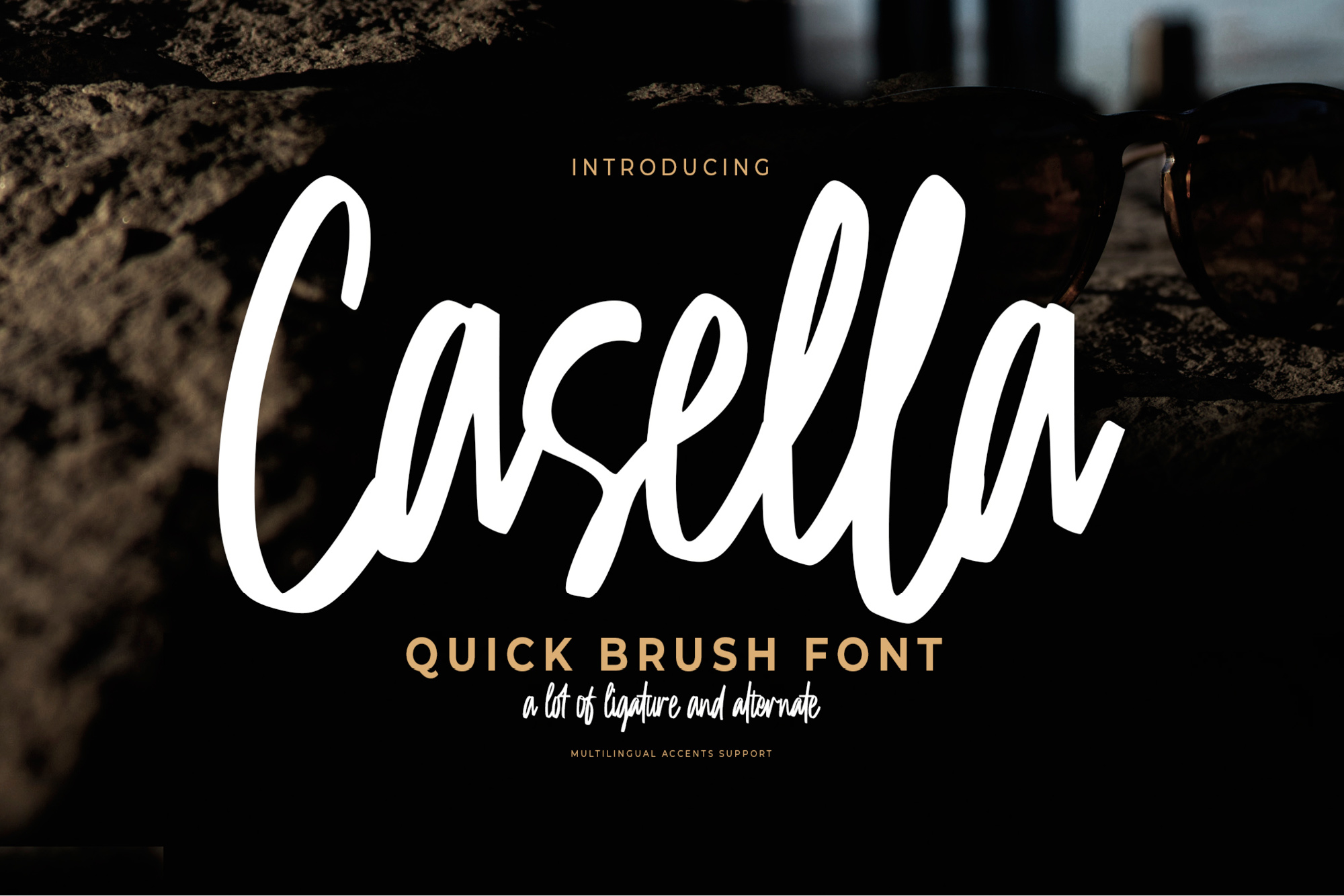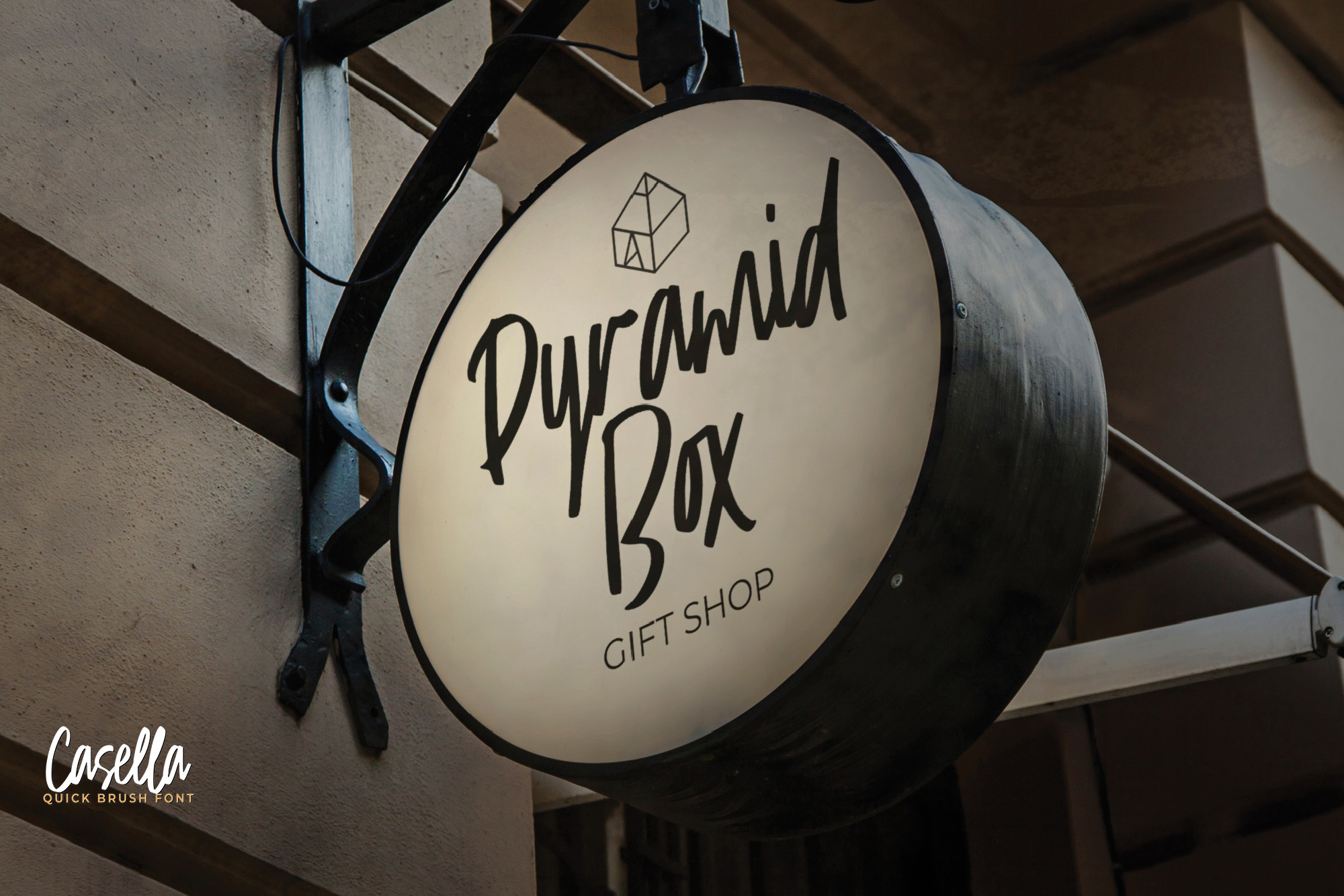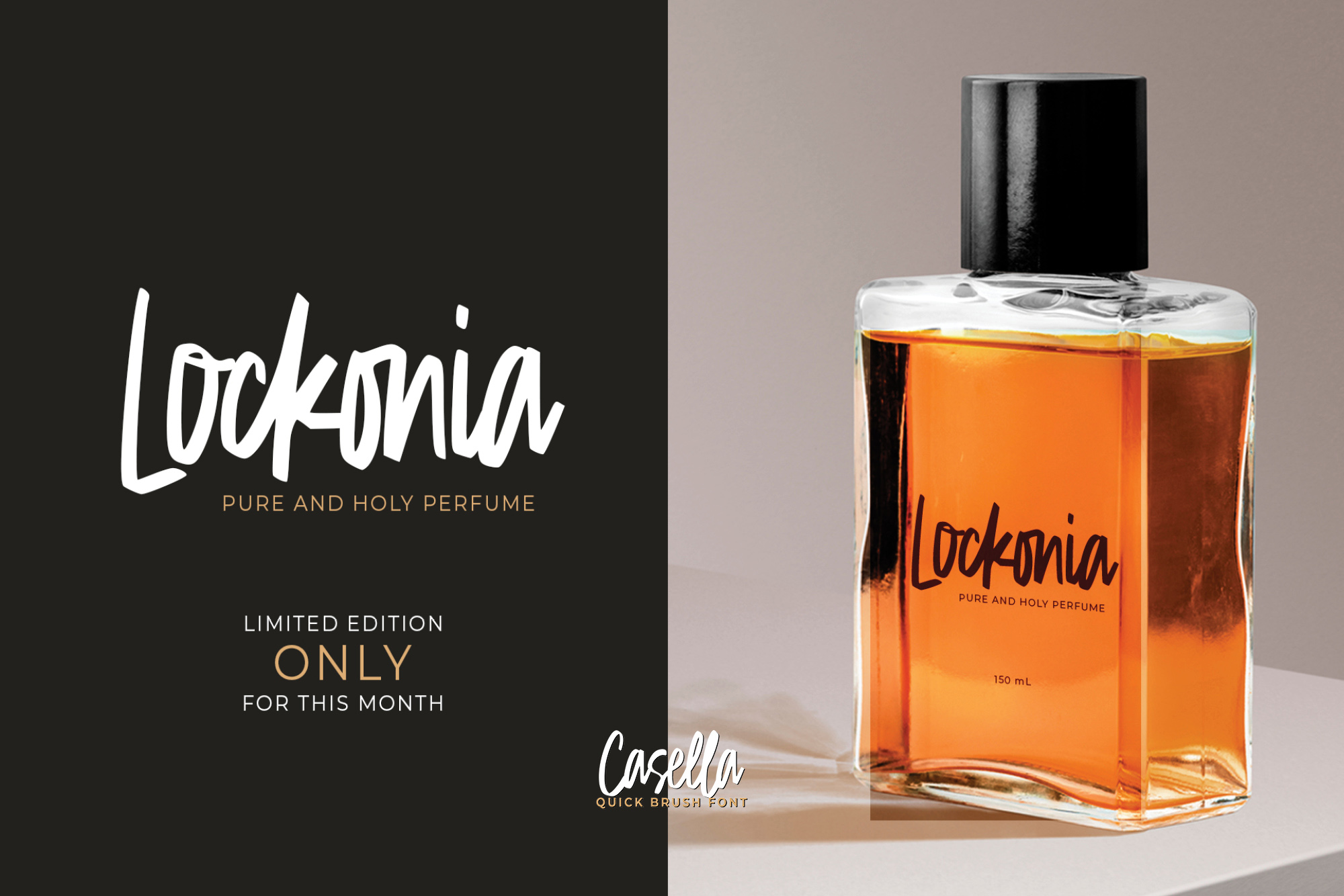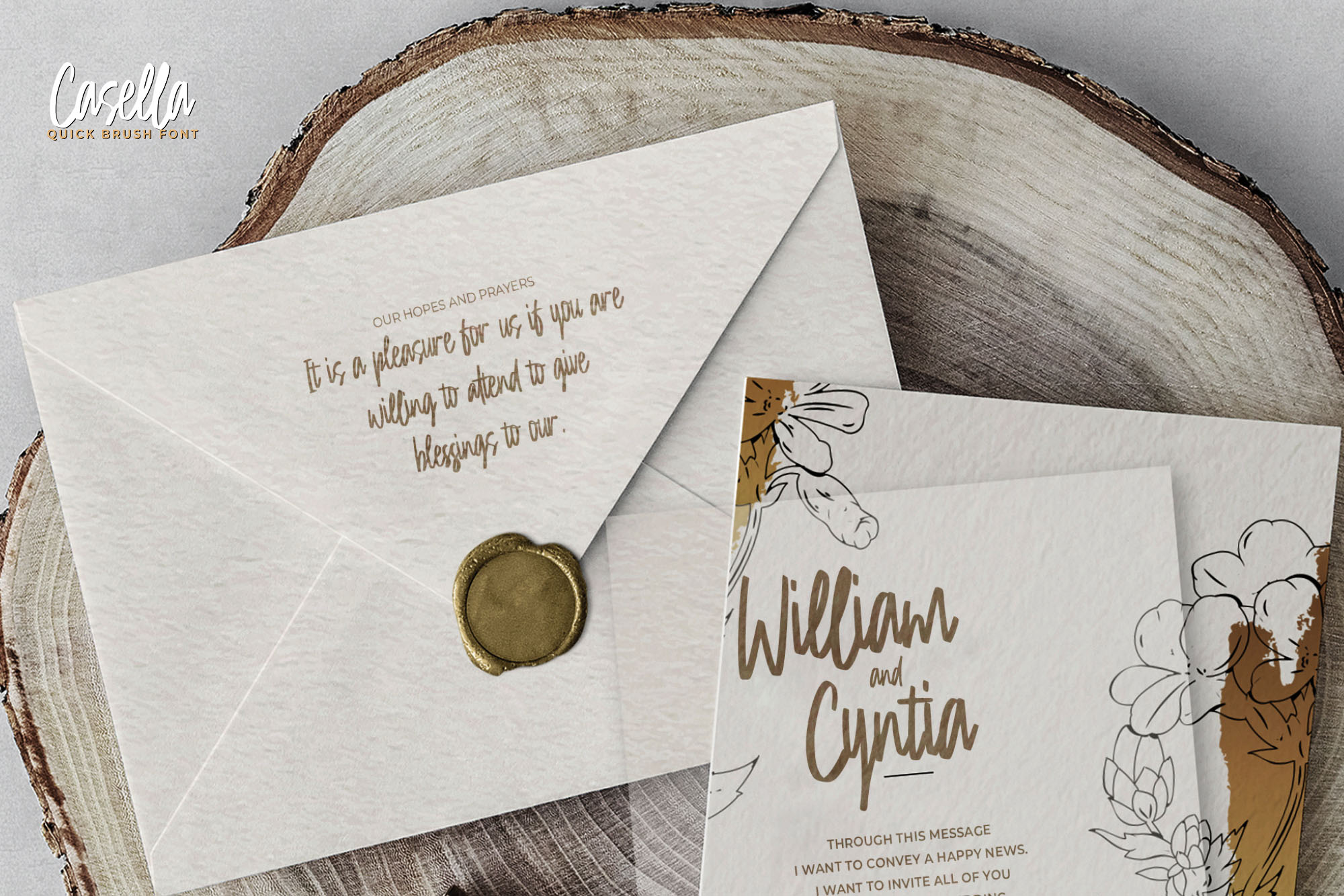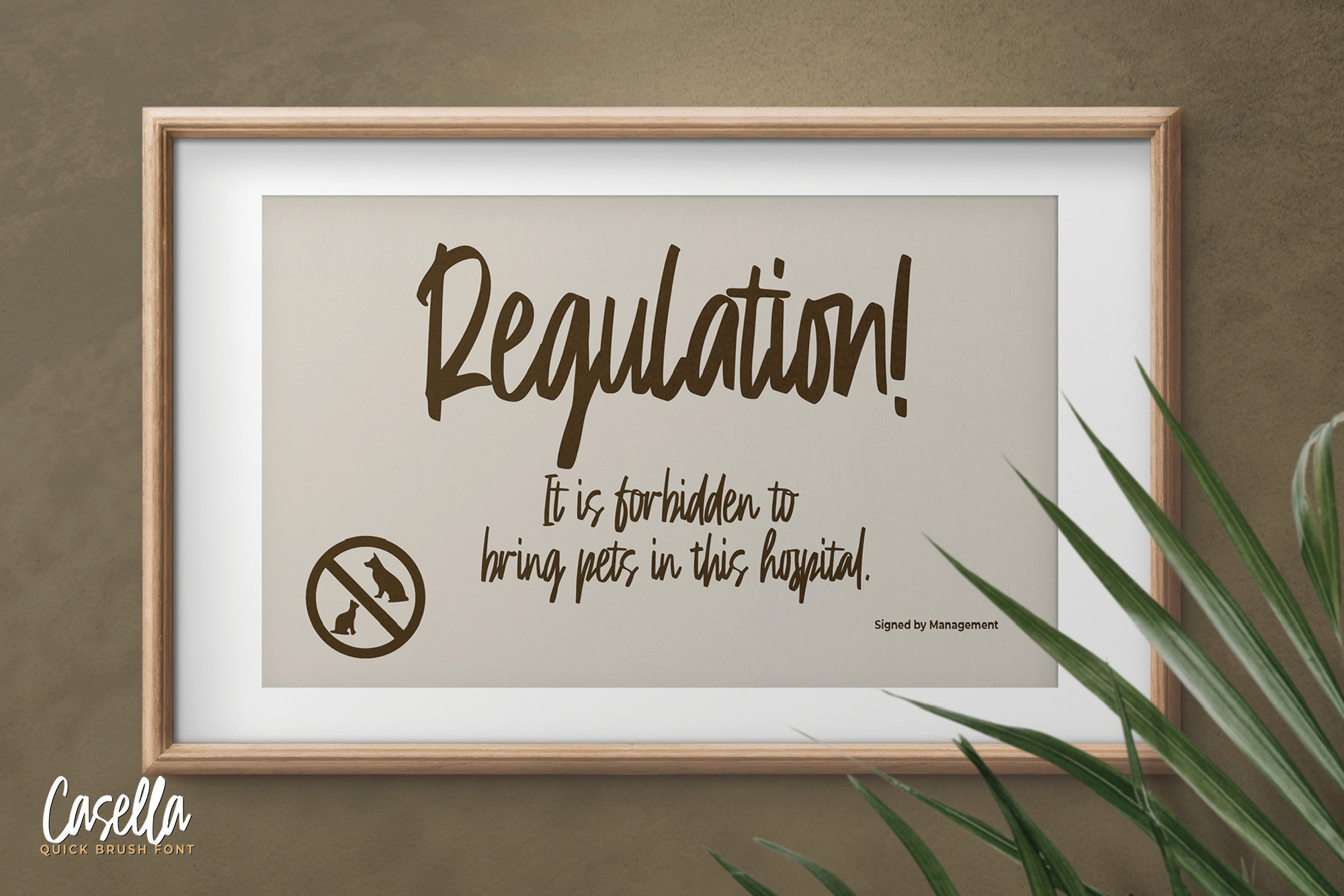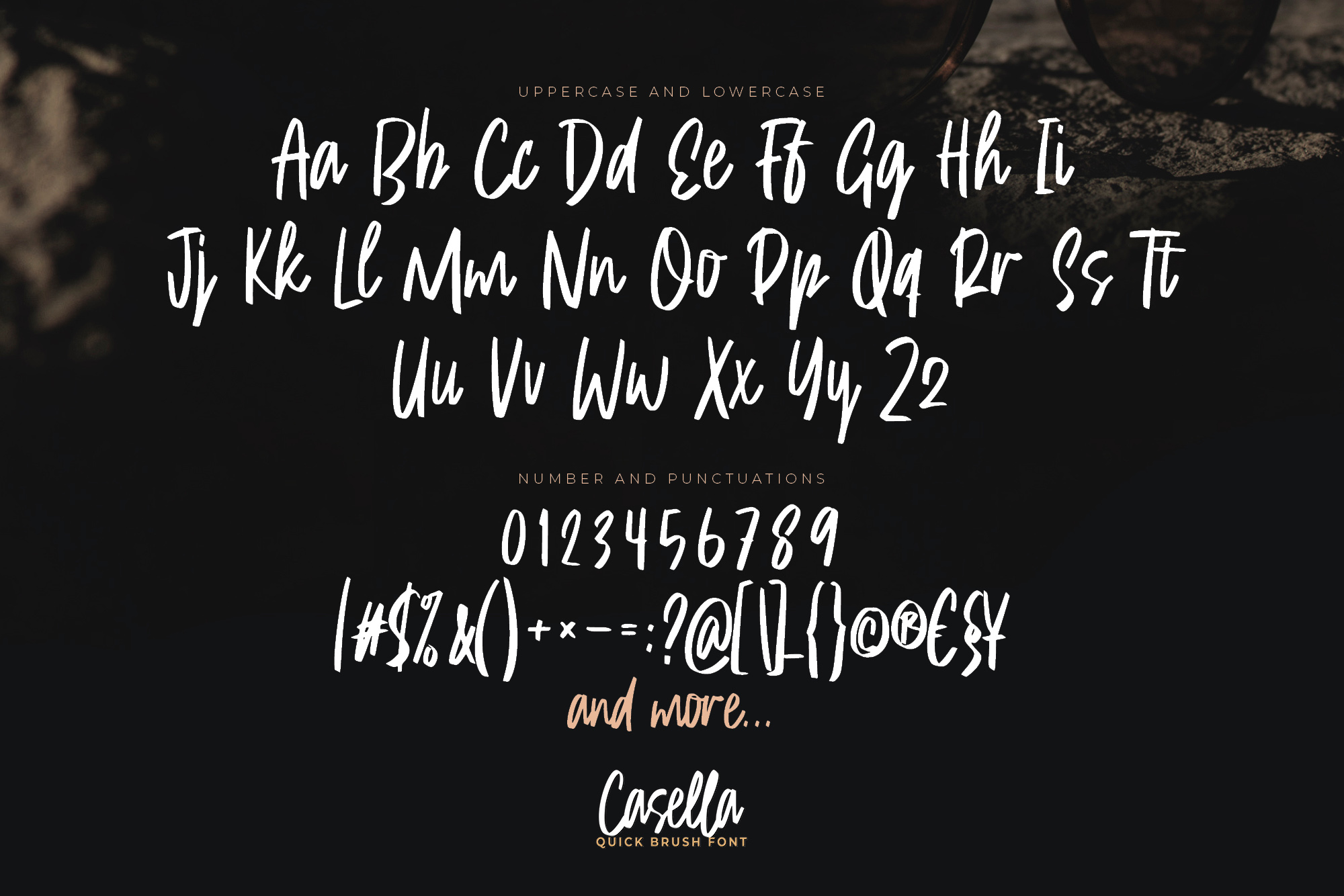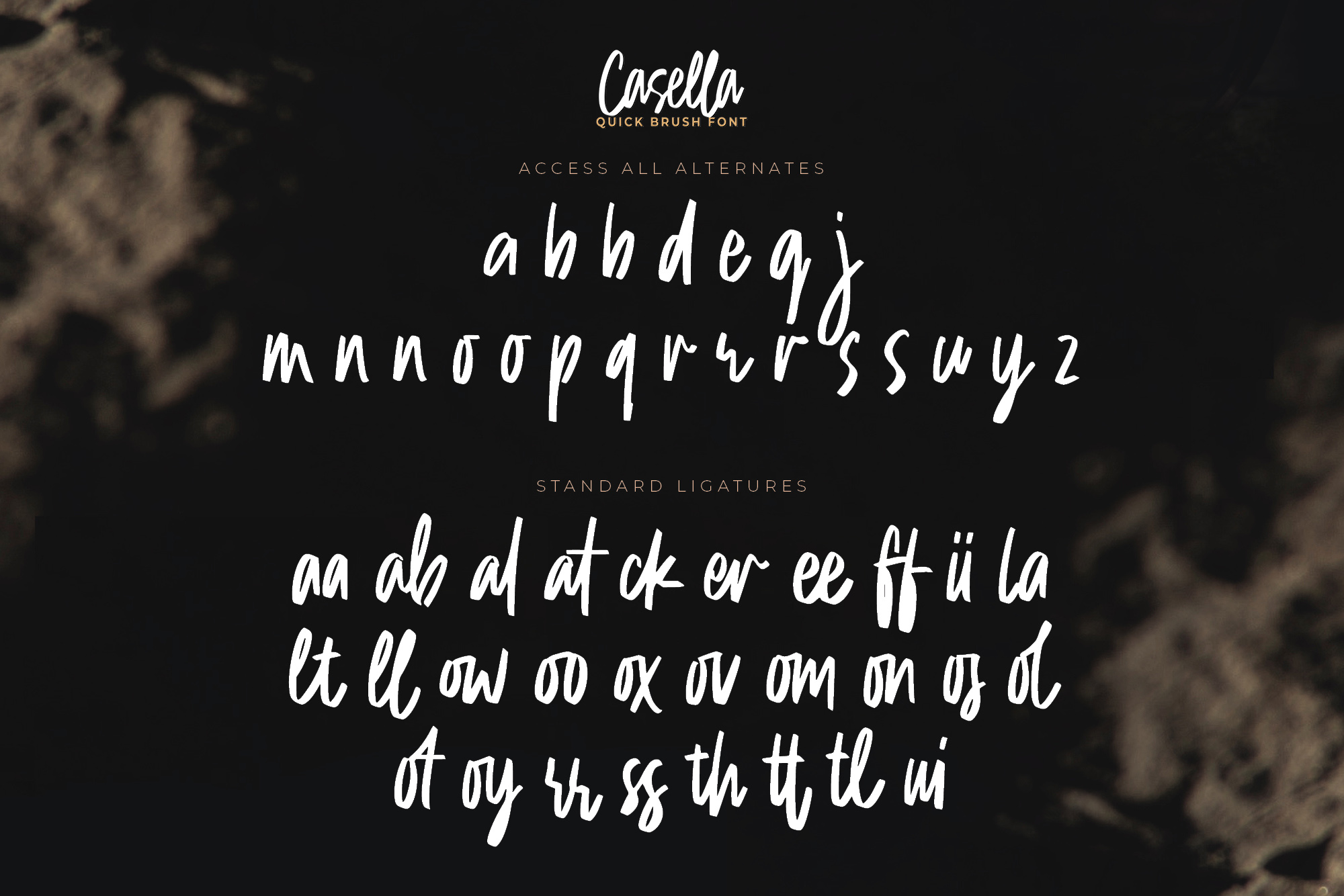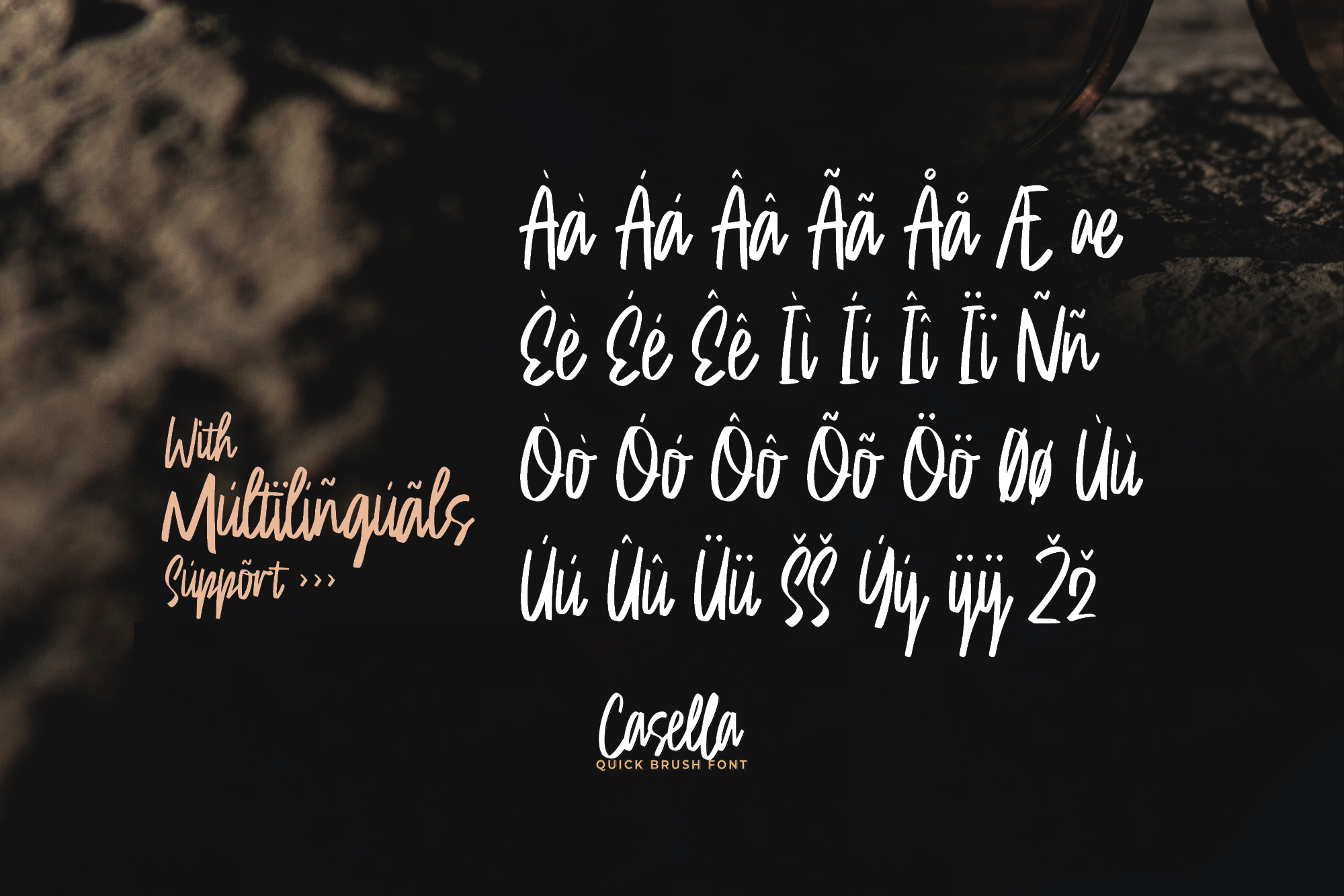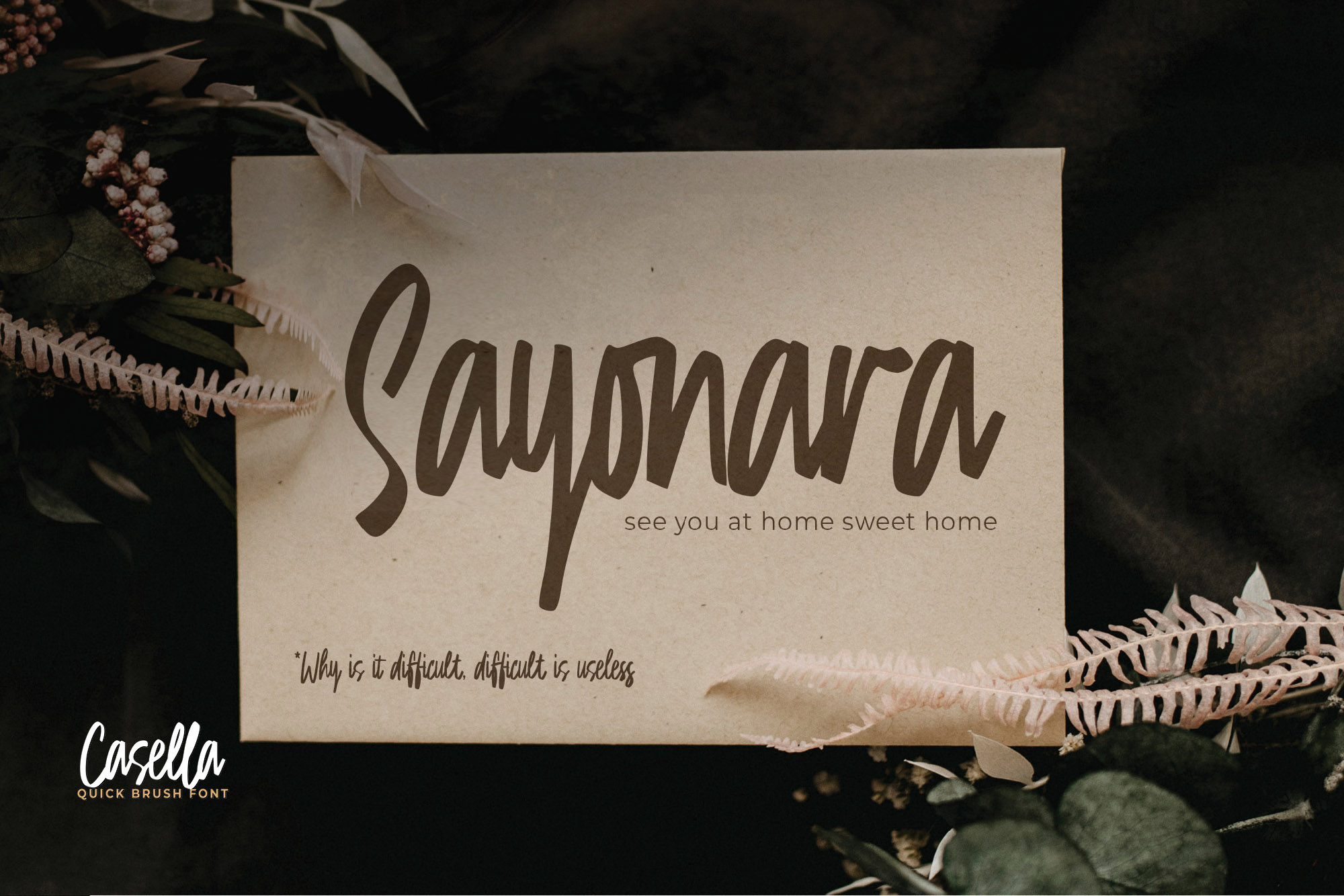
Hello Everyone, introduce our new product Font Cassella This Is Quick Brush Font.This is a Textured Natural Style and classy style with a clear style and dramatic movement.
This font Cassella is great for your next creative project such as logos, printed quotes, invitations, cards, product packaging, headers, Logotype, Letterhead, Poster, Design this font is great for your creative projects such as watermark on photography, and perfect for logos & branding, invitation,advertisements,product designs, stationery, wedding designs,label ,product packaging, special events or anything that need handwritting taste.
That is has charming, authentic and relaxed characteristic more natural look to your text.
You can activate 28 Ligatures and 22 Alternate glyphs OpenType panel.